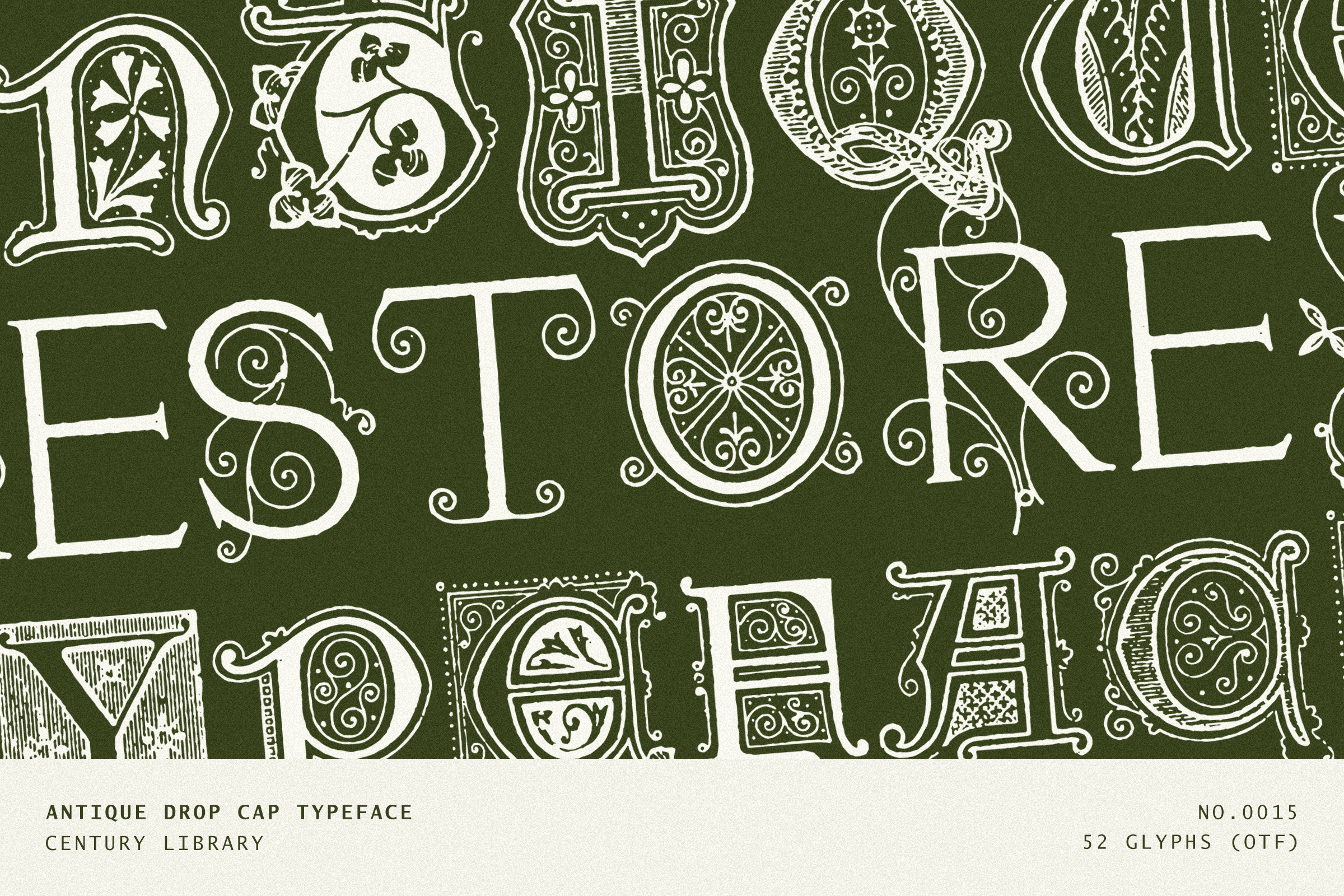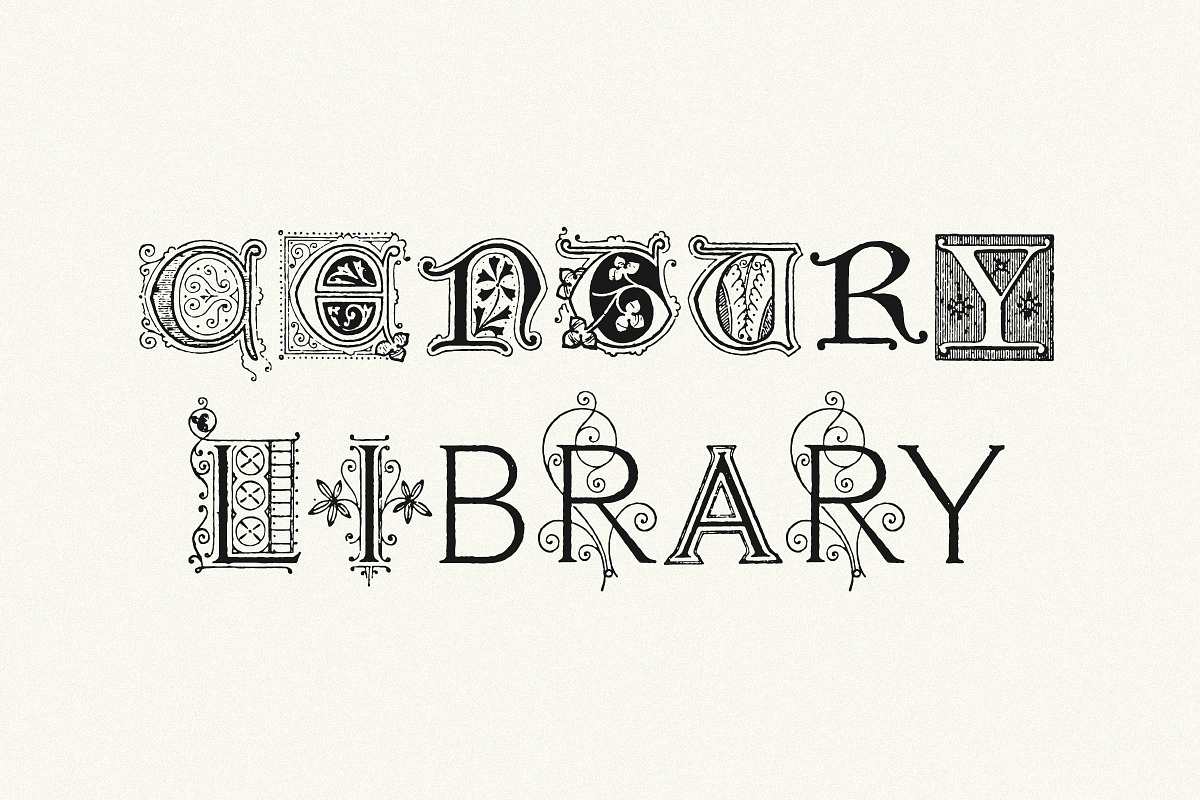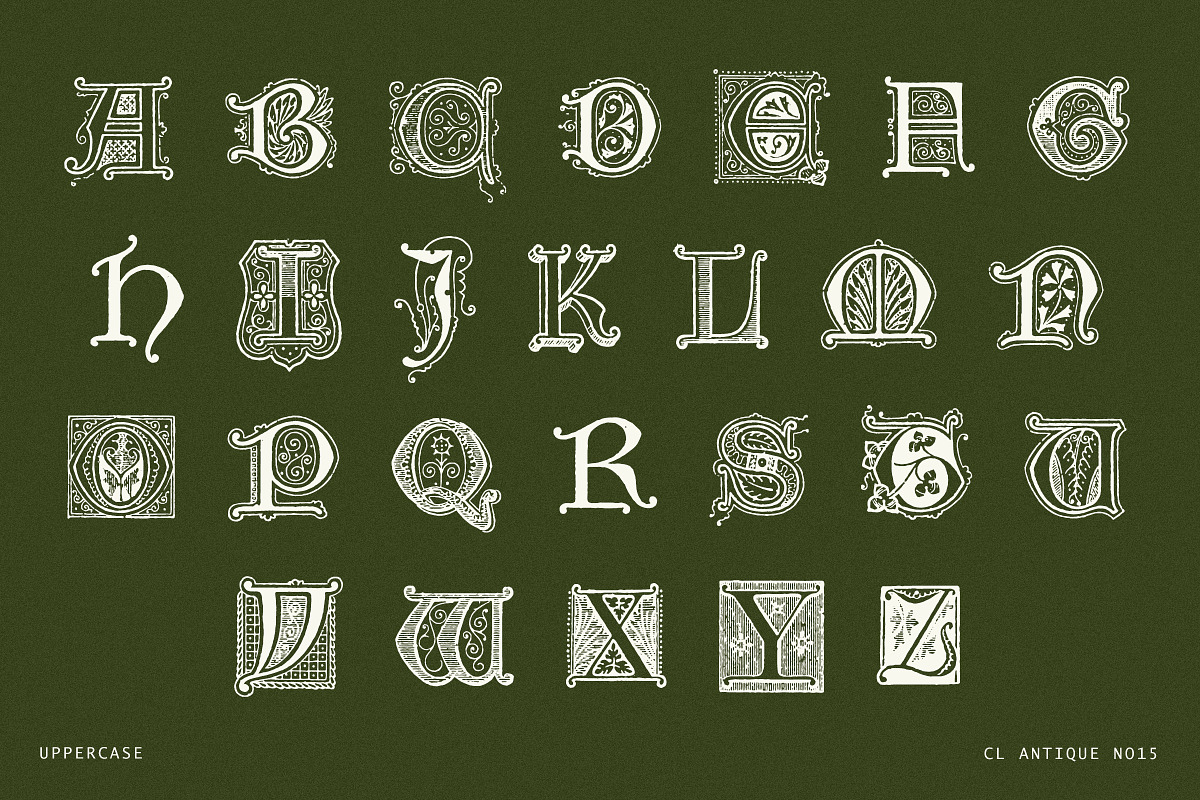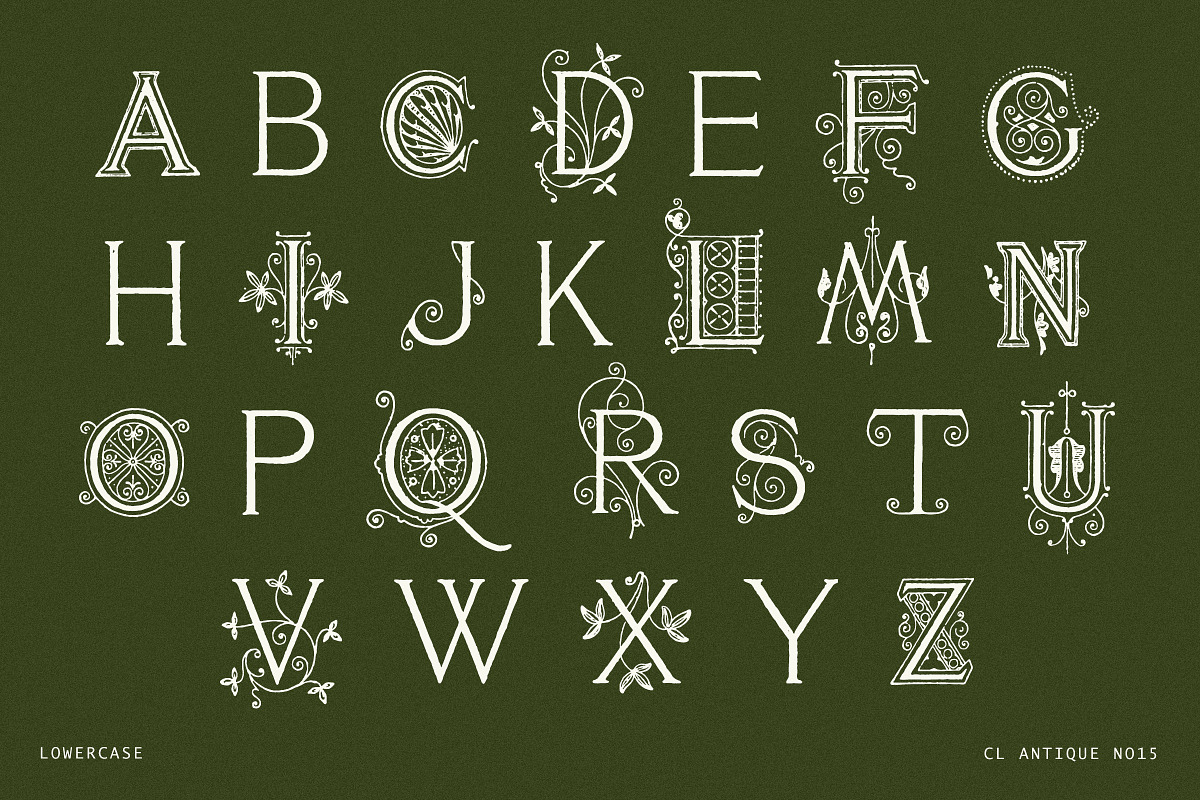
Ornate Botanical Drop Cap Font No15
Introducing CL Antique No.15 – a breathtaking collection of ornate botanical drop caps, lovingly restored from original 19th-century engravings.
Part of the Century Library archive, this font features an eclectic mix of leafy flourishes, delicate detailing, and engraved textures. Each letter was meticulously scanned, cleaned, and converted into a working font – preserving every fine detail, flourish, and bit of Victorian artistry.
These aren’t modern redraws. Every glyph is a faithful translation of the original craftsmanship, celebrating the natural, hand-drawn imperfections and intricate detailing that defined antique drop cap lettering.
Perfect for book covers, wedding invitations, branding projects, editorial layouts, posters, and any project that demands a rich, dramatic, and authentic vintage touch.